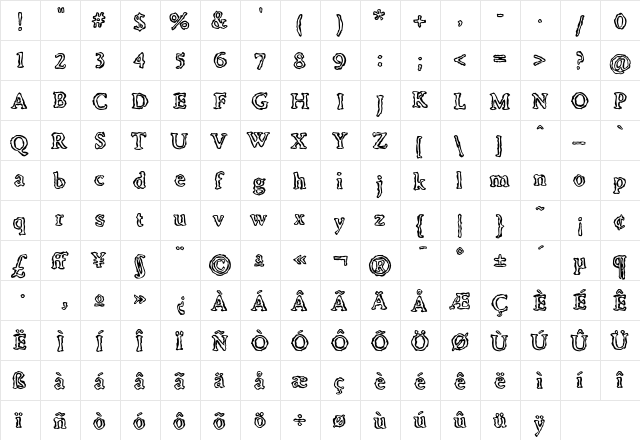
Irregular Inline
| Style | Inline |
Irregular brings ornamental detail and strong personality to headlines and identities, where visual impact matters more than quiet functionality.
Font Pairing: Pair with a clean neutral sans-serif for body copy to let Irregular's character lead without overwhelming the composition.
Pro Tip: Use Irregular exclusively at display sizes — it was designed to be seen, not read at length. Let a neutral companion handle body copy.